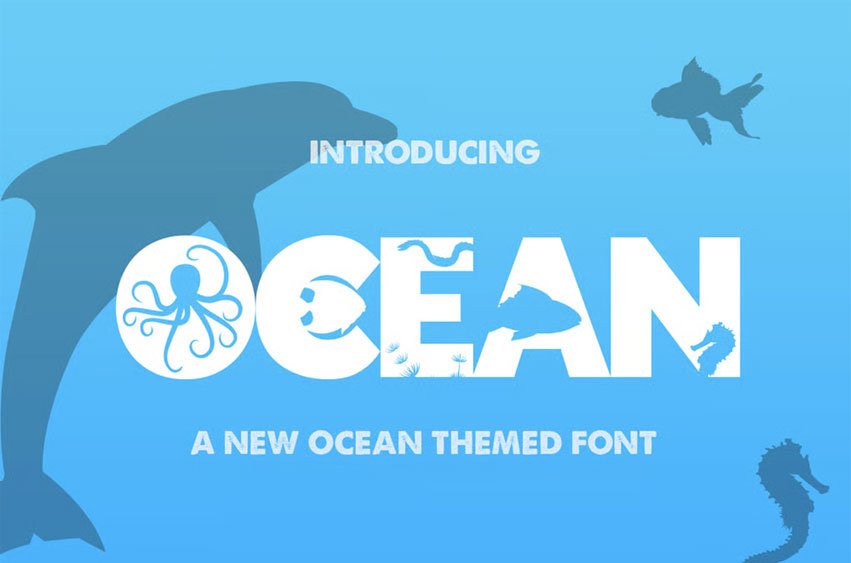
The Ocean Font is suitable for flyers, posters, novels, letterheads, or any design requirements you want to be awesome.
It will certainly amaze your readers.
The Ocean Font Preview